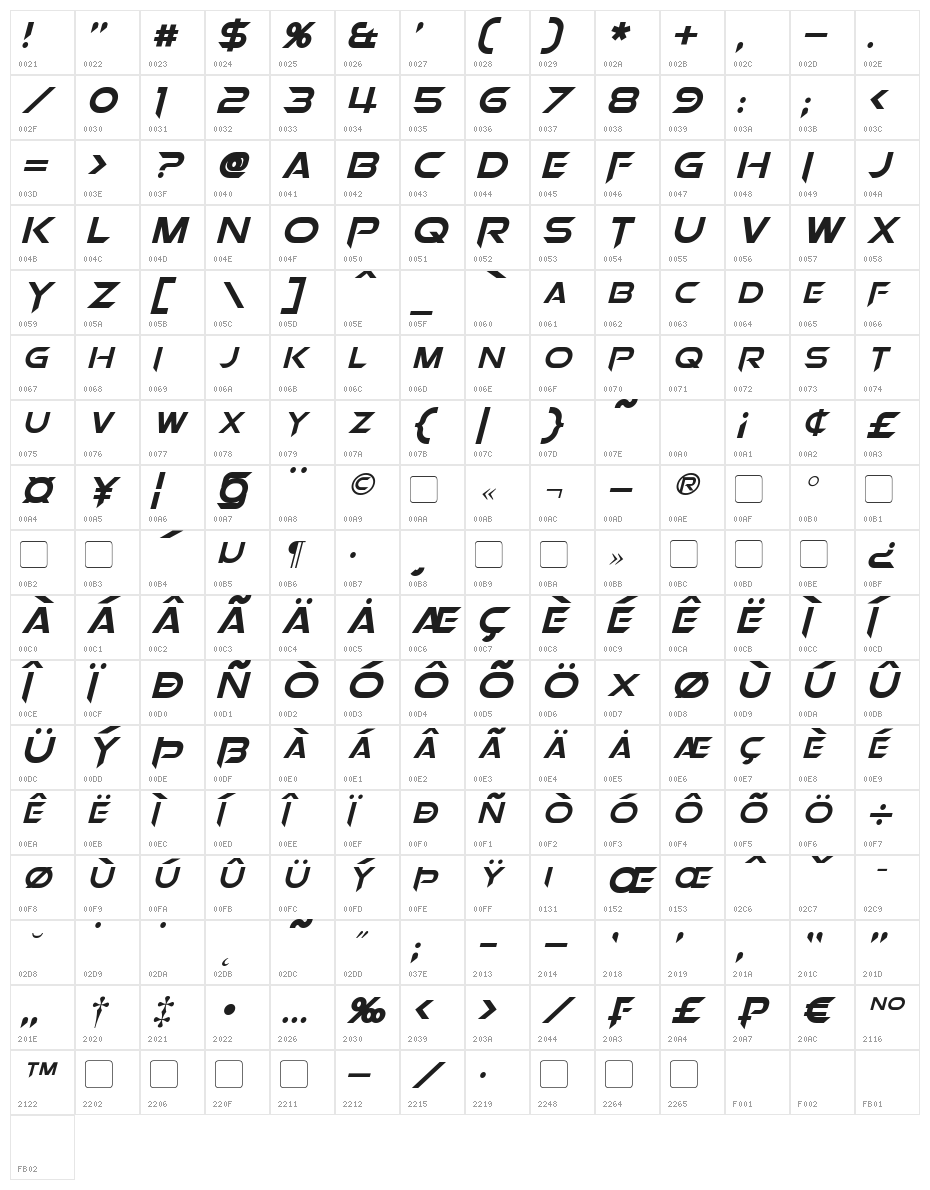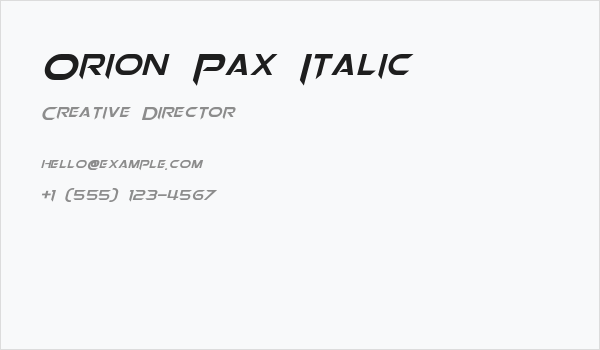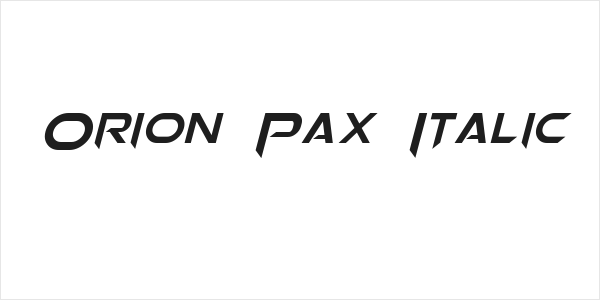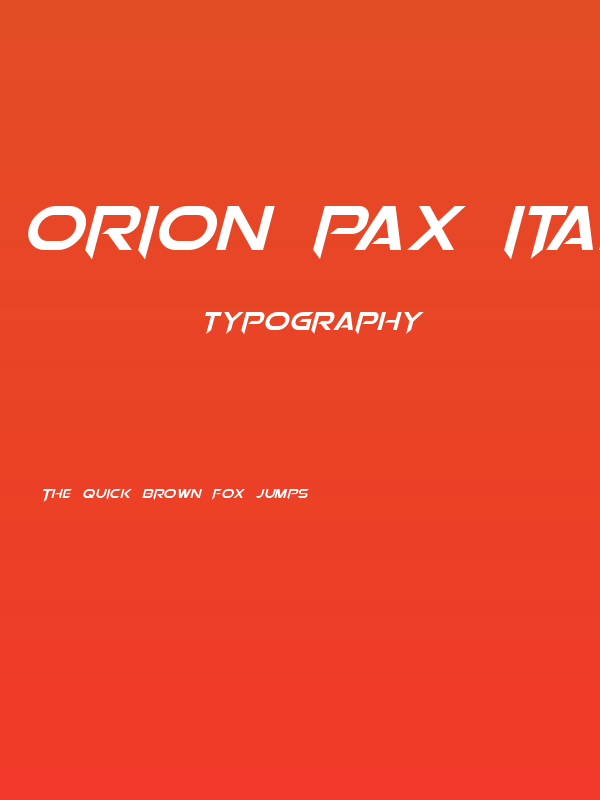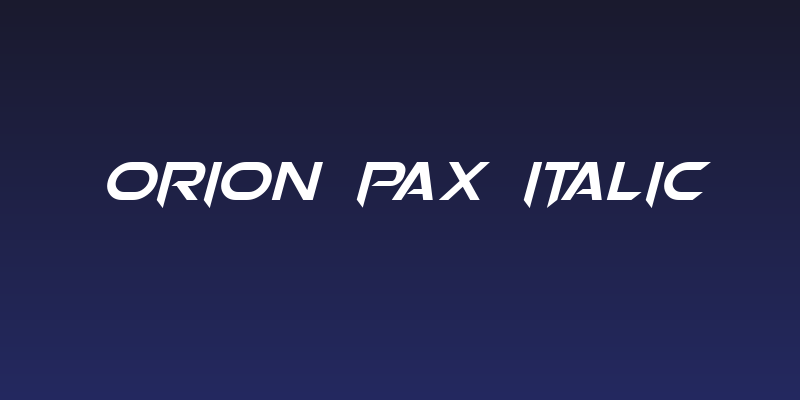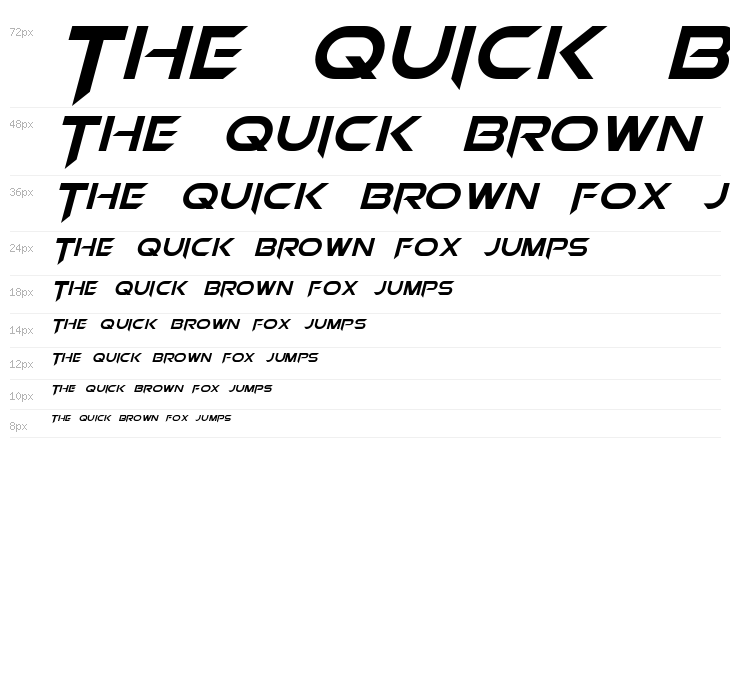
Orion Pax Italic Font
Orion Pax Italic Description
This font features a dynamic and futuristic style with sharp, angular lines and a distinct italic slant. The characters are bold and slightly condensed, giving a sense of speed and motion. The uppercase and lowercase letters maintain a consistent design, with unique cuts and edges that enhance its modern appeal. The numerals and special characters follow the same aesthetic, ensuring uniformity across all glyphs. This font is well-suited for projects that require a contemporary and edgy look, such as technology branding, sports team logos, or sci-fi themed designs.
| Use Case | Logos, Headlines |
| Proposed Projects | Ideal for technology branding, sports logos, and sci-fi themed designs. |